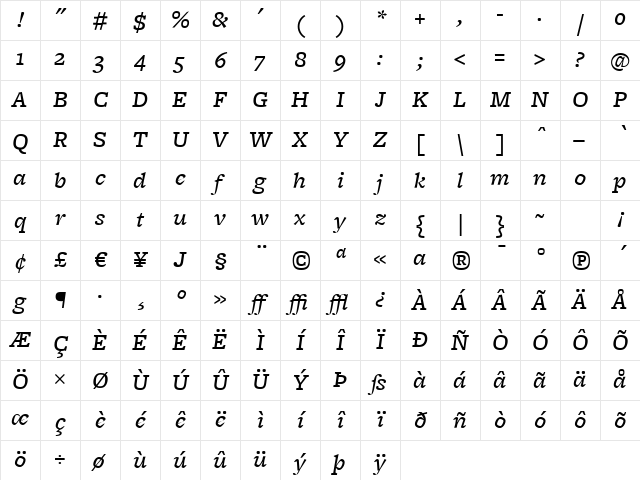
FreightMicro MediumItalic
Style: MediumItalic
Foundry: Joshua Darden & Phil's Fonts, Inc
Designer: Joshua Darden
FreightMicro Family
Design Context for FreightMicro
FreightMicro is a composed and adaptable typeface that performs quietly and consistently across a wide range of design contexts. The slanted form adds forward momentum and visual energy.
Pro Tip: Use FreightMicro for emphasis, pull quotes, and subheadings where its slanted energy can add rhythm to the layout.